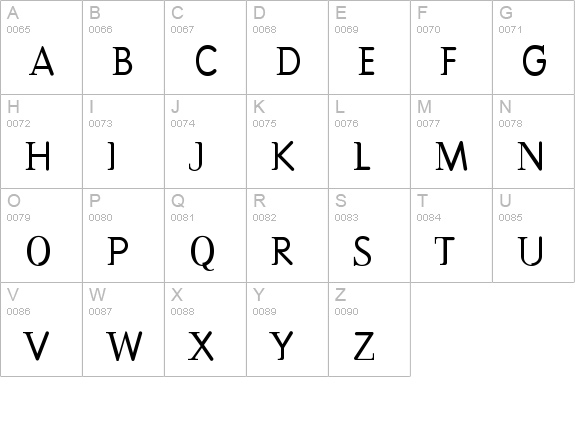
DeadHistoryRomanA Font Details
Introducing DeadHistoryRomanA font, a stunning and versatile typeface that exudes an ancient charm with a modern twist. This font captures the essence of Roman history and architecture, bringing a touch of classic elegance to any design project. With its intricate details and bold presence, DeadHistoryRomanA is perfect for headlines, branding, posters, and more. What sets DeadHistoryRomanA apart is not only its rich historical aesthetic but also its accessibility - this font is completely free to download at FontsMarket.com. Now you can add a touch of ancient Rome to your designs without breaking the bank. Don't miss out on this unique and striking font that will elevate your projects to a new level of sophistication. Download DeadHistoryRomanA today and let your creativity soar.